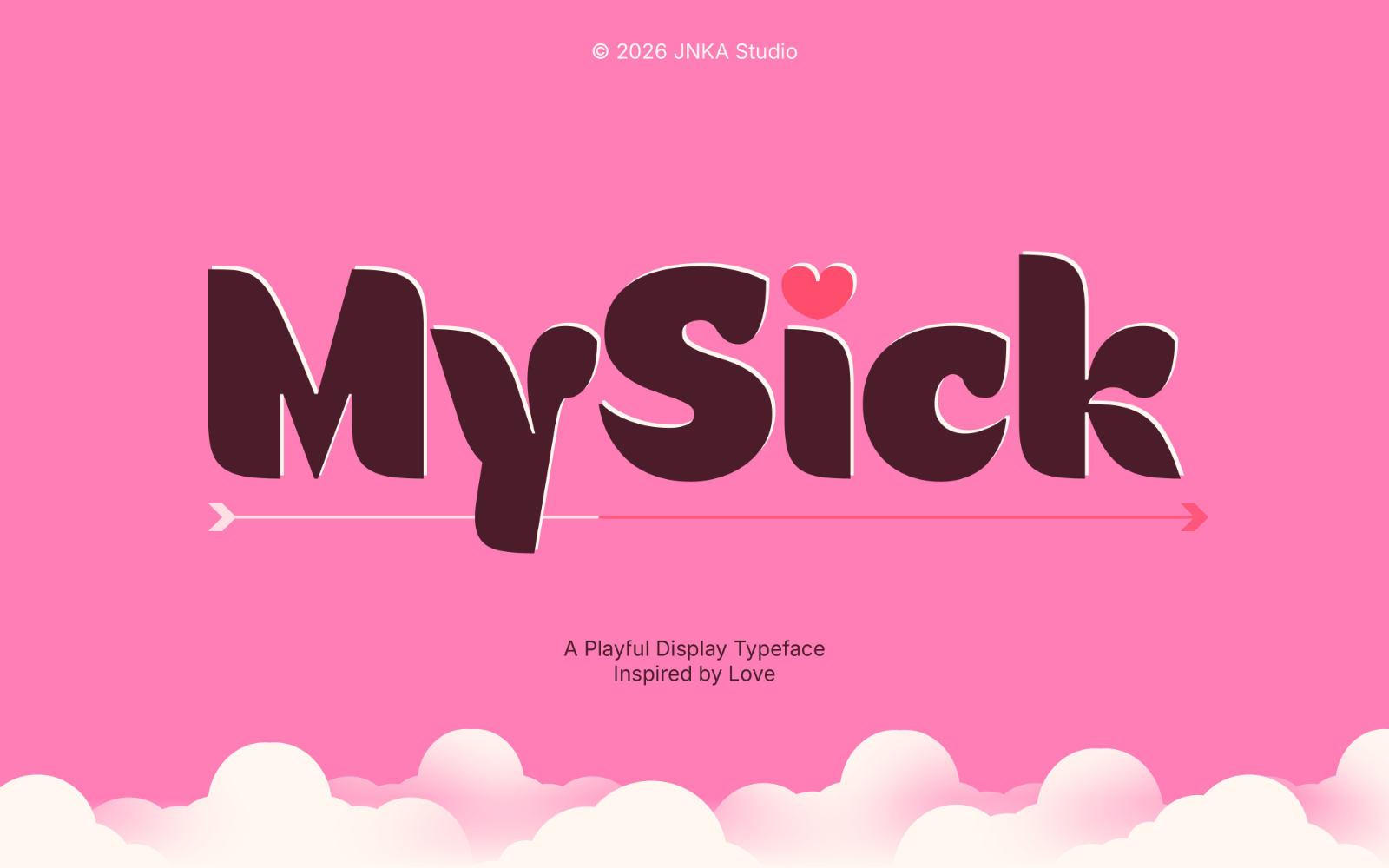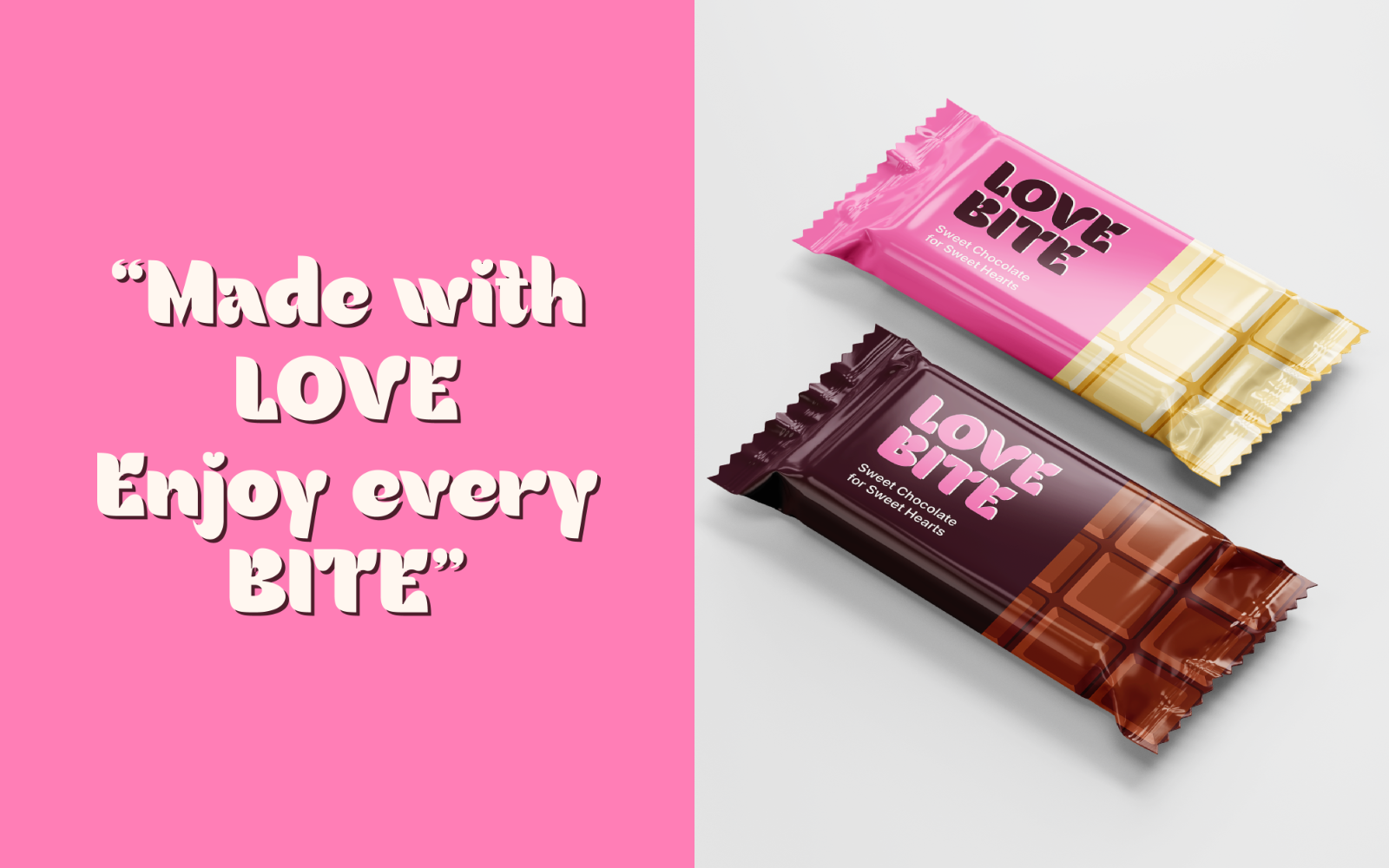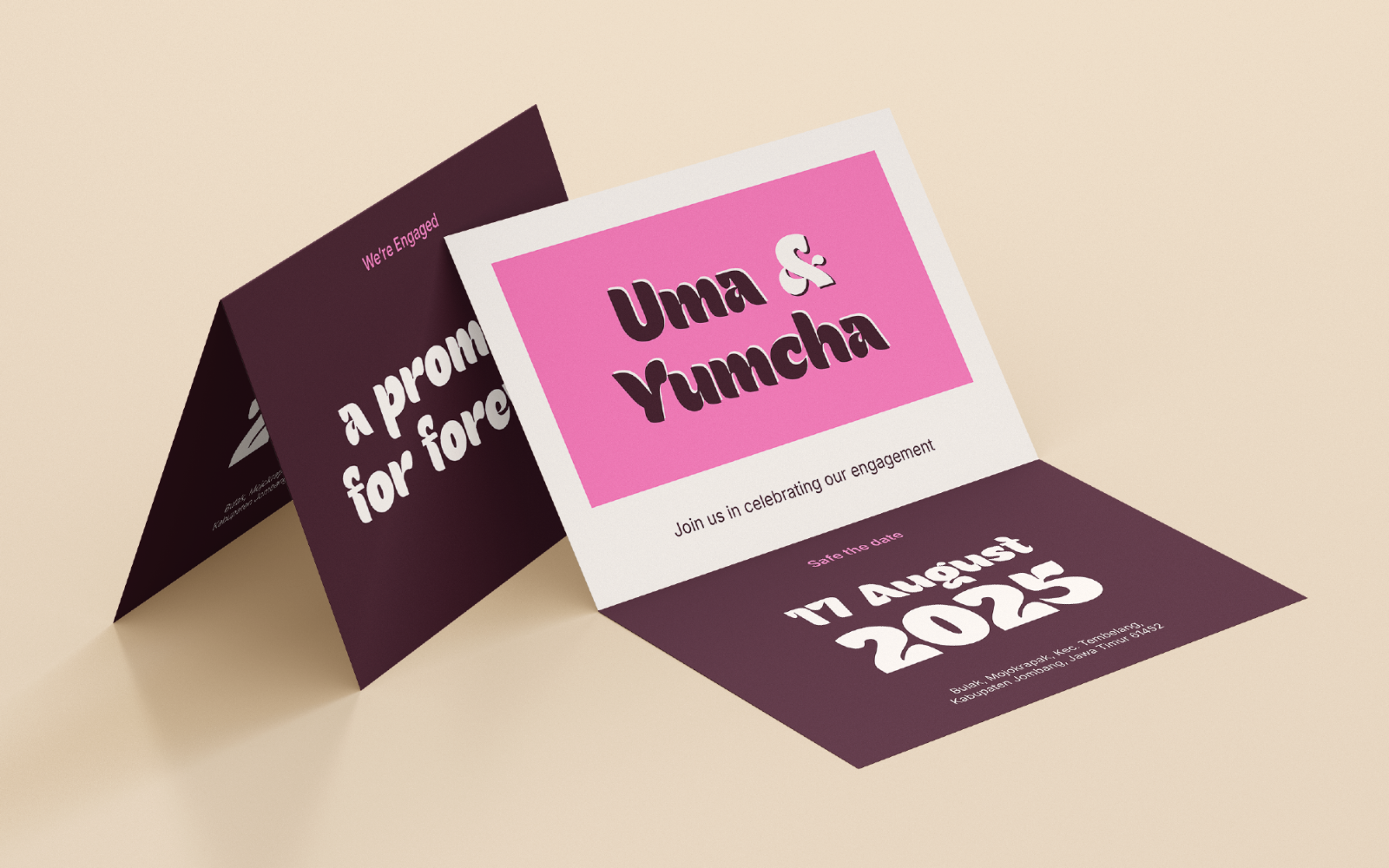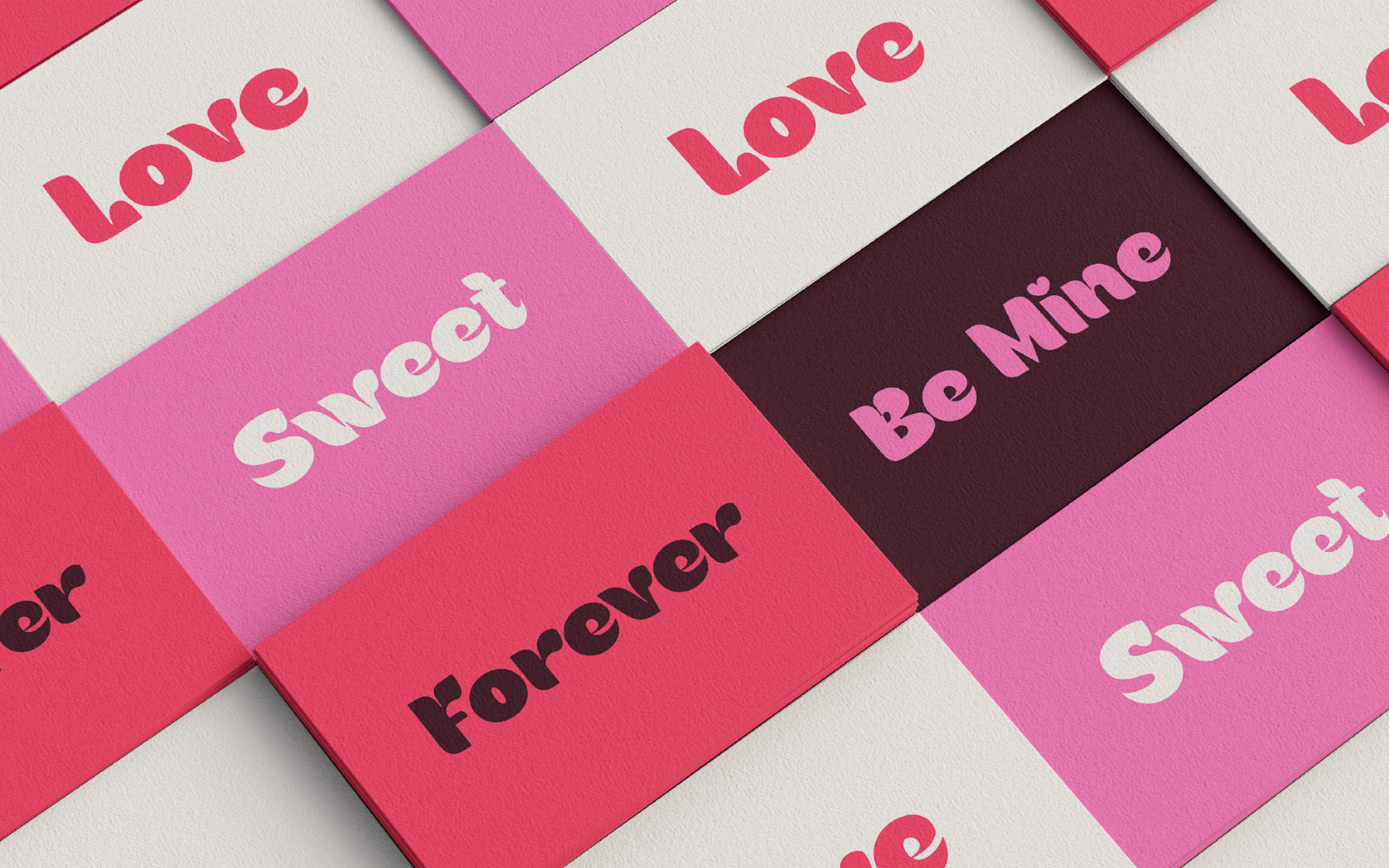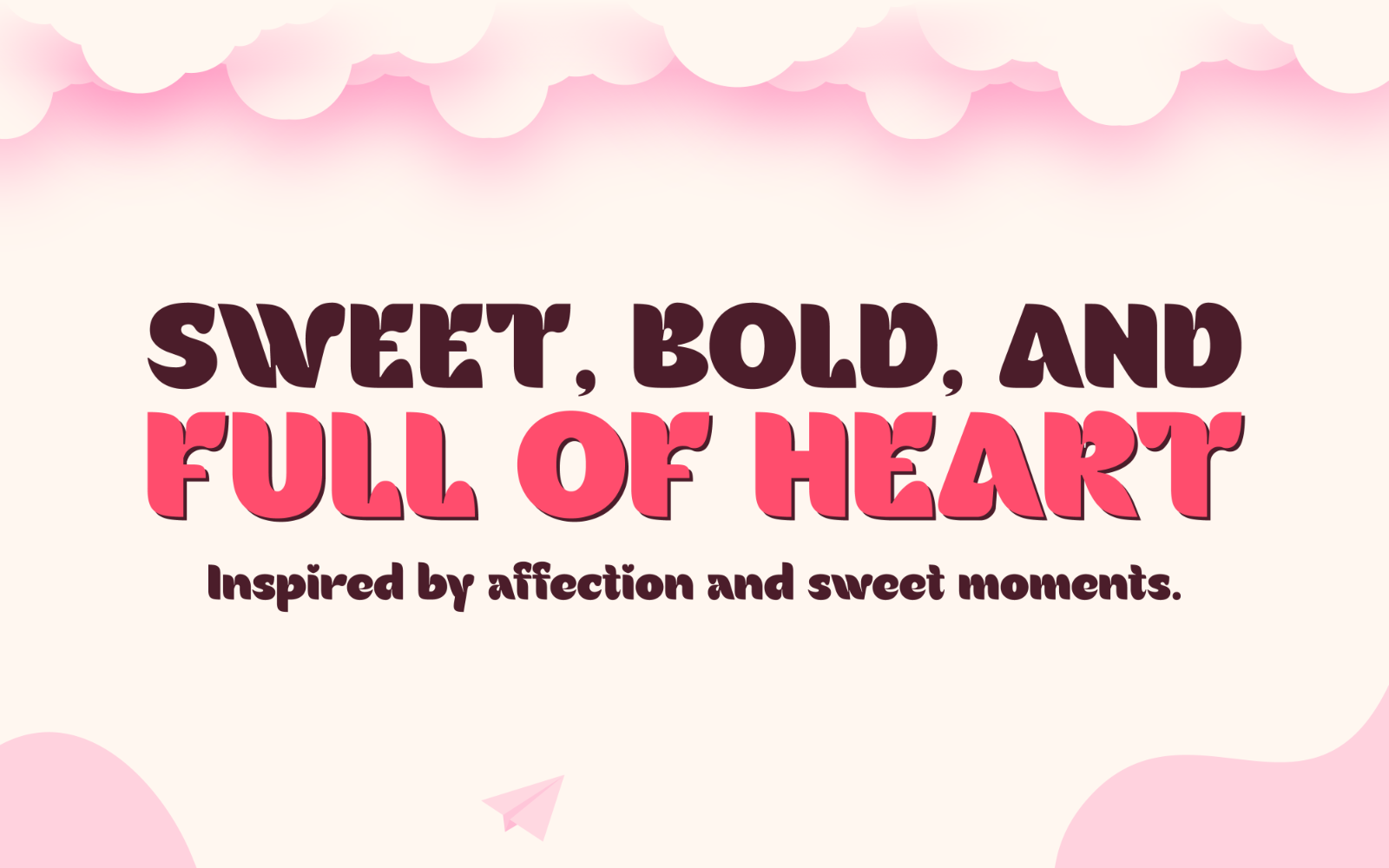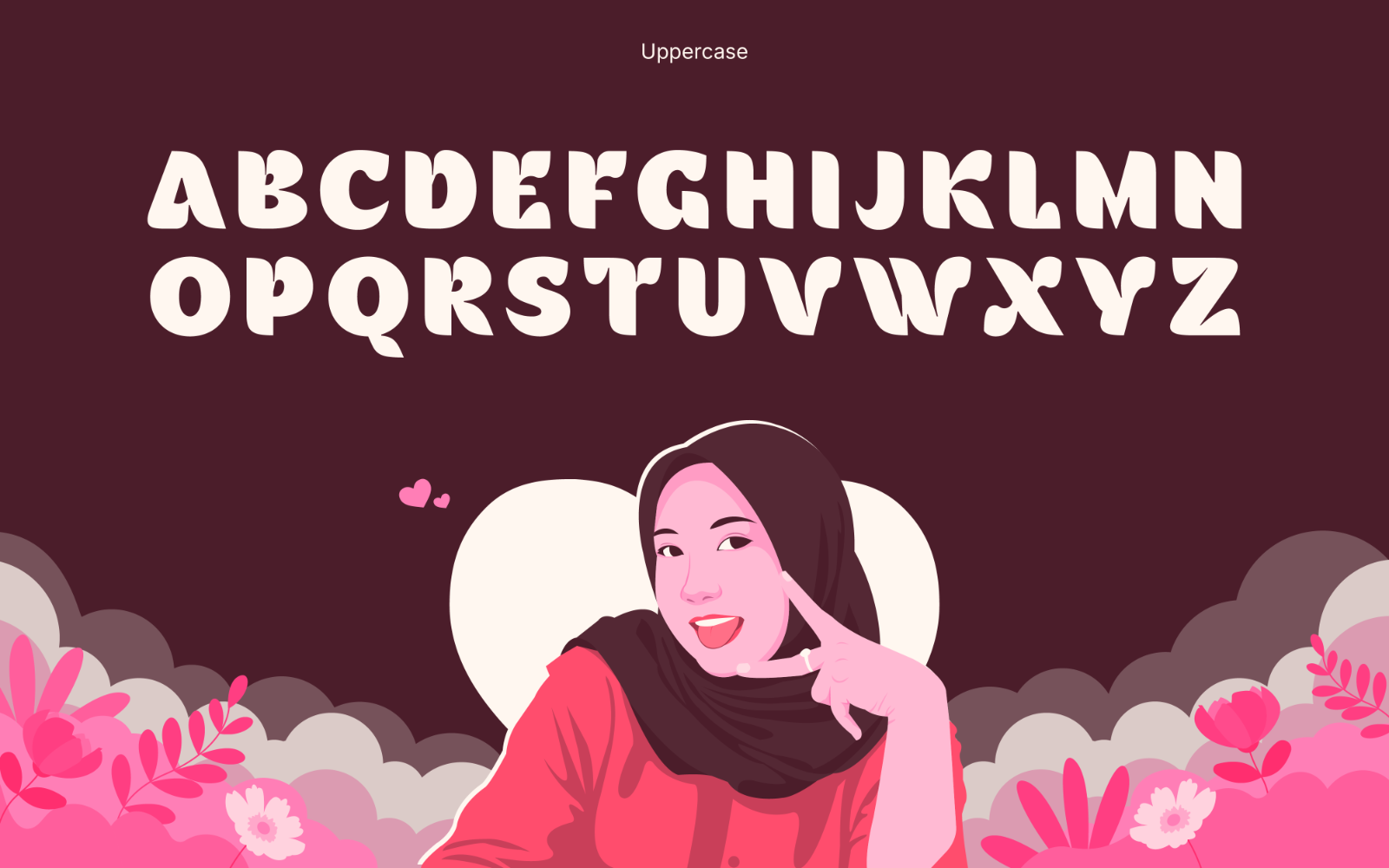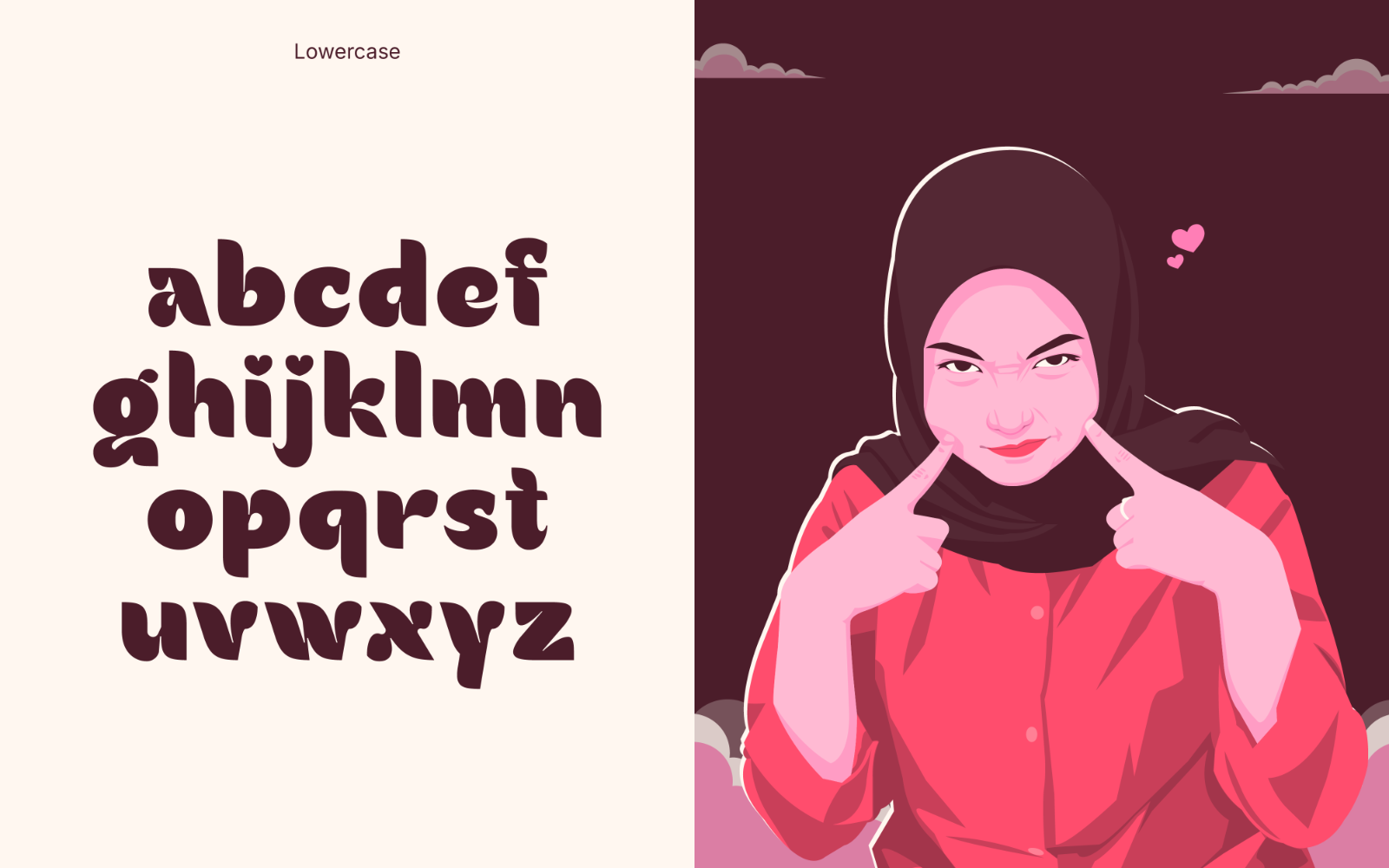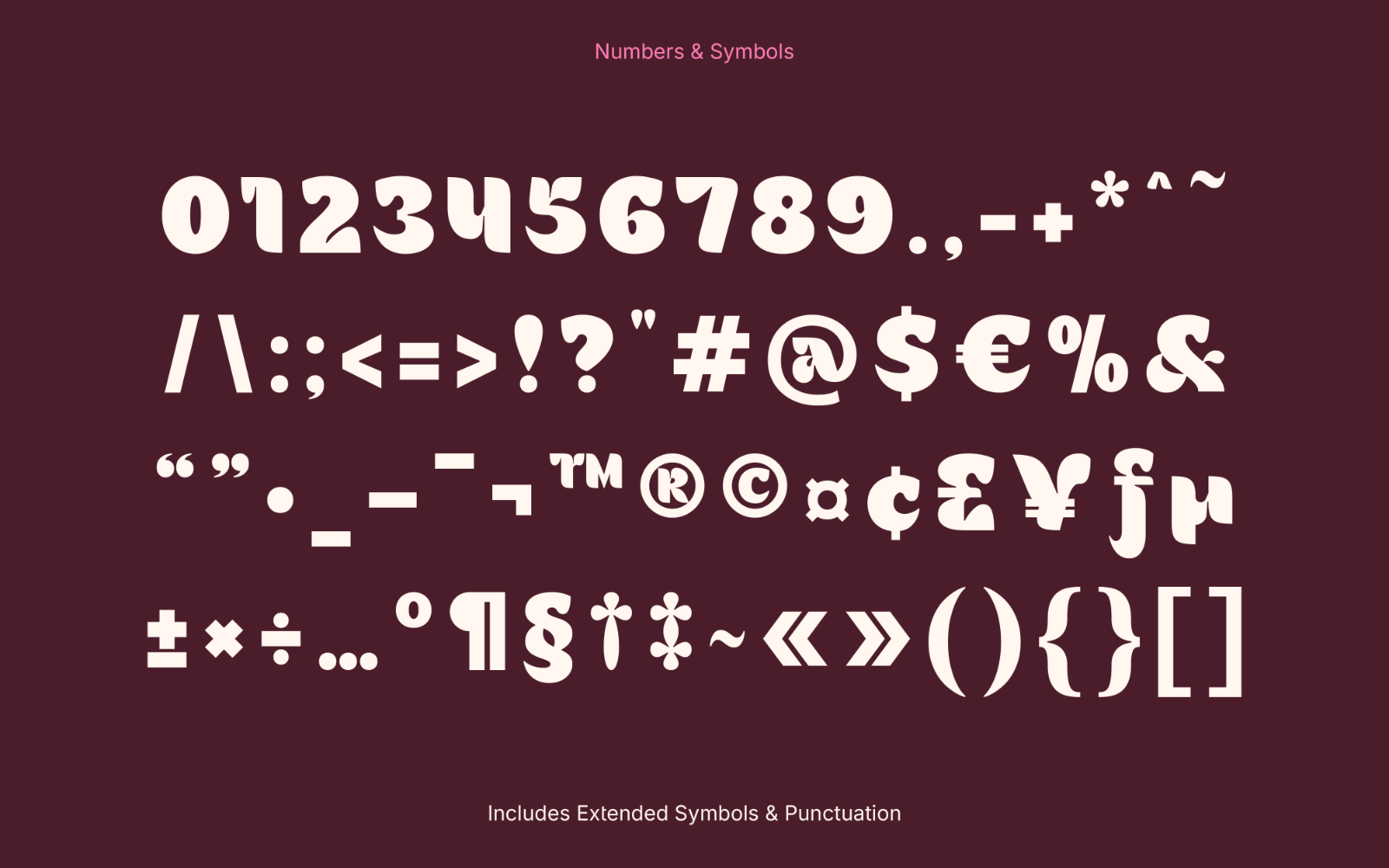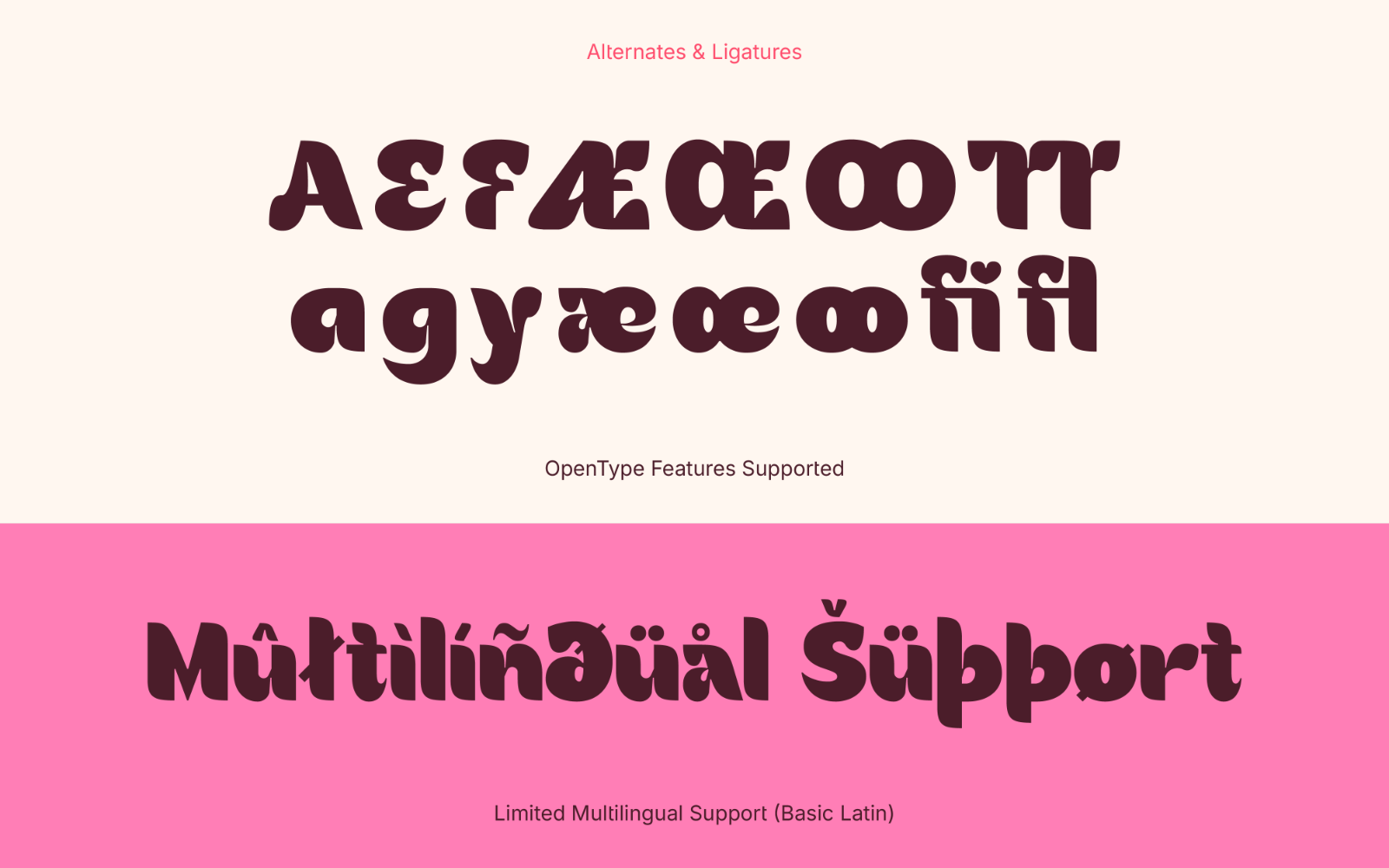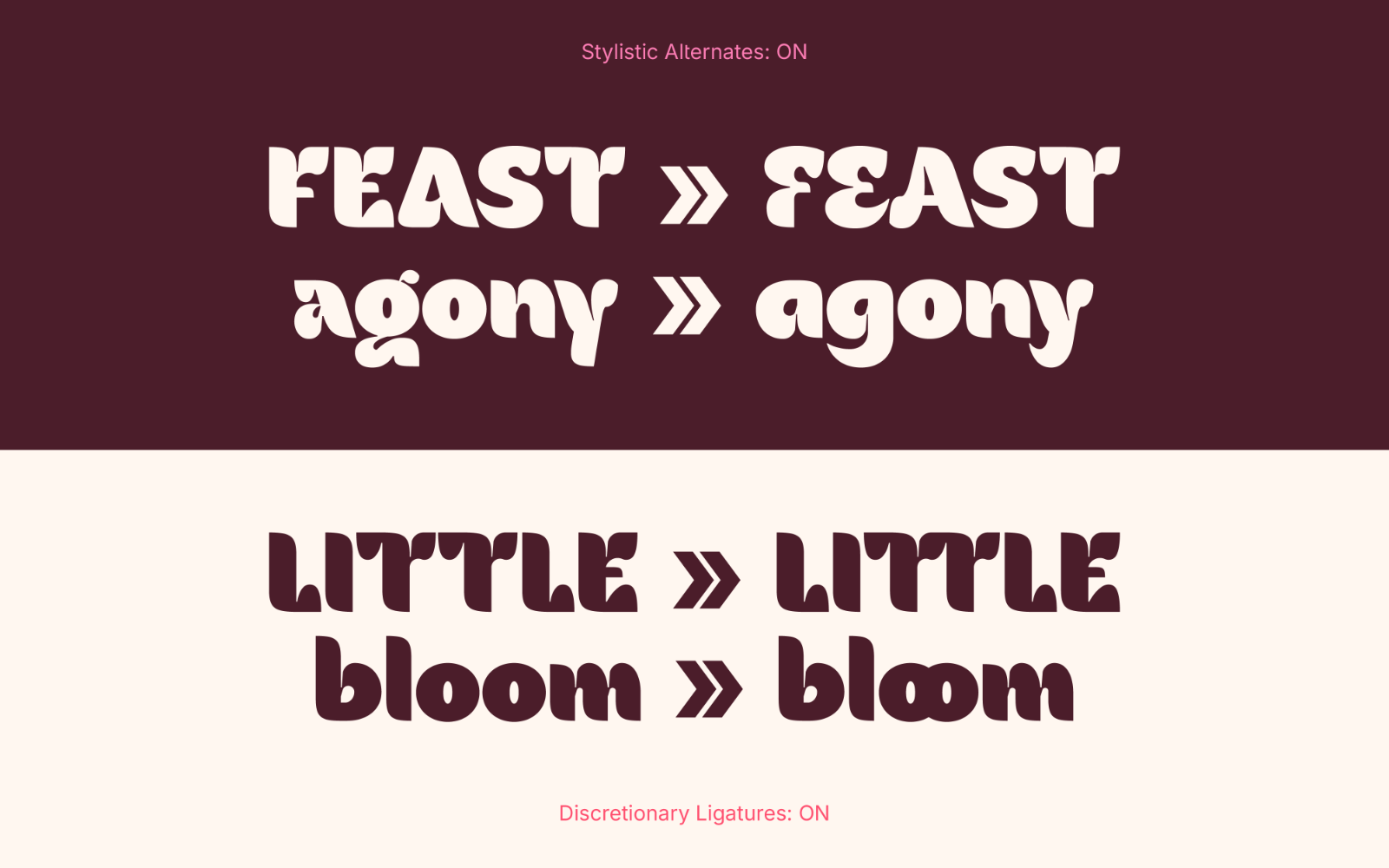
MySick
Is a bold and playful display typeface inspired by love and sweet moments. With rounded shapes and a subtle heart detail, it brings a warm, charming, and expressive Valentine vibe. Perfect for headlines, greeting cards, invitations, merchandise, and romantic design projects.
Font Features:
- Uppercase & Lowercase Letters
- Numbers & Standard Punctuation
- Symbols & Special Characters
- Basic Multilingual Support (Latin-based)
- Stylistic Alternates
- Standard & Decorative Ligatures
- Fully PUA Encoded Characters
- Carefully Adjusted Kerning
- Approx. 241 Glyphs
- OpenType Features